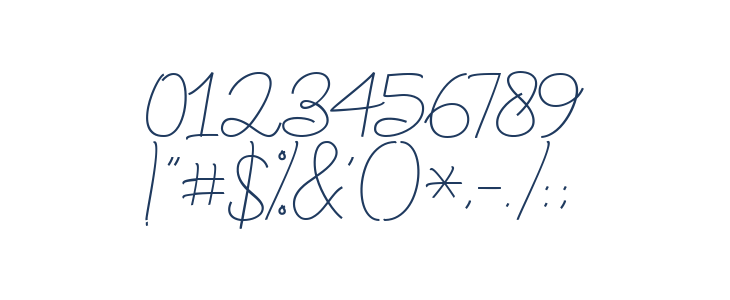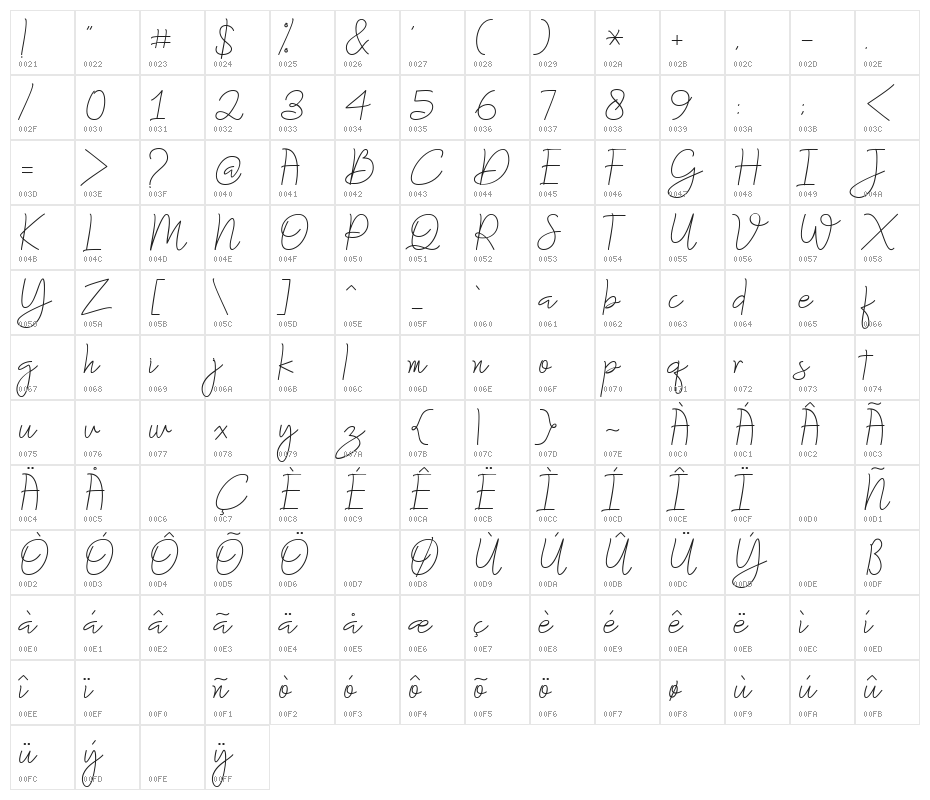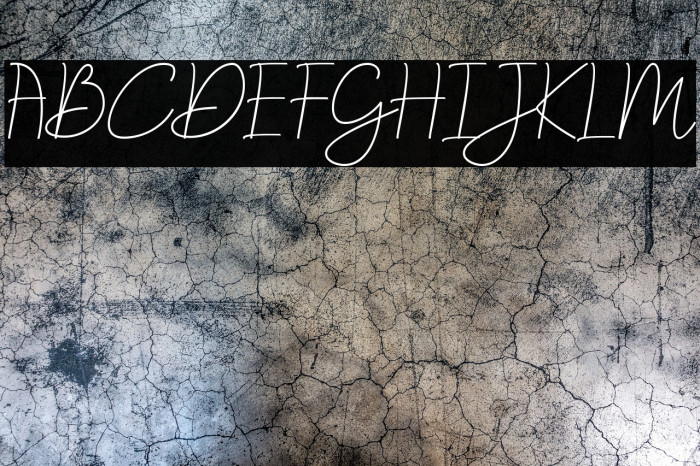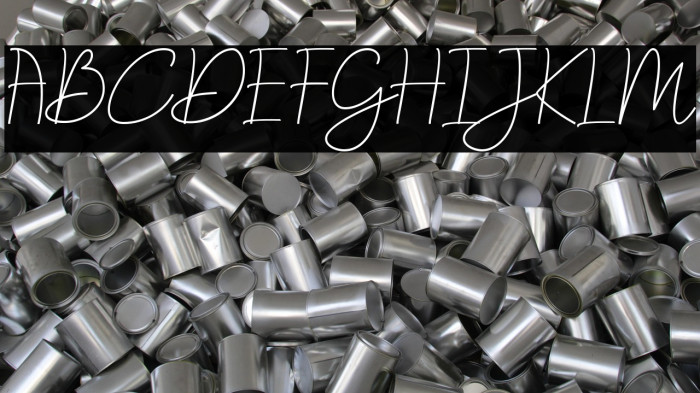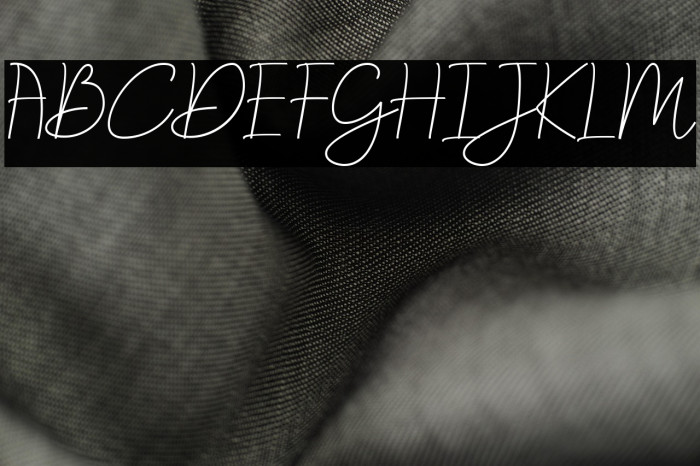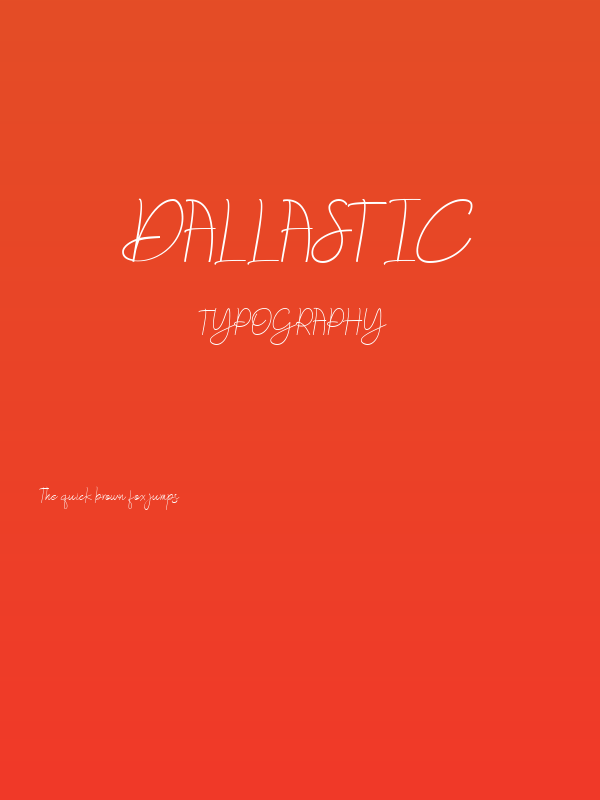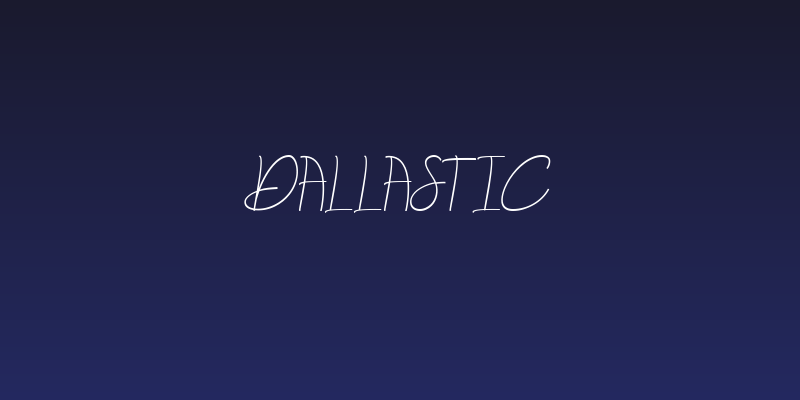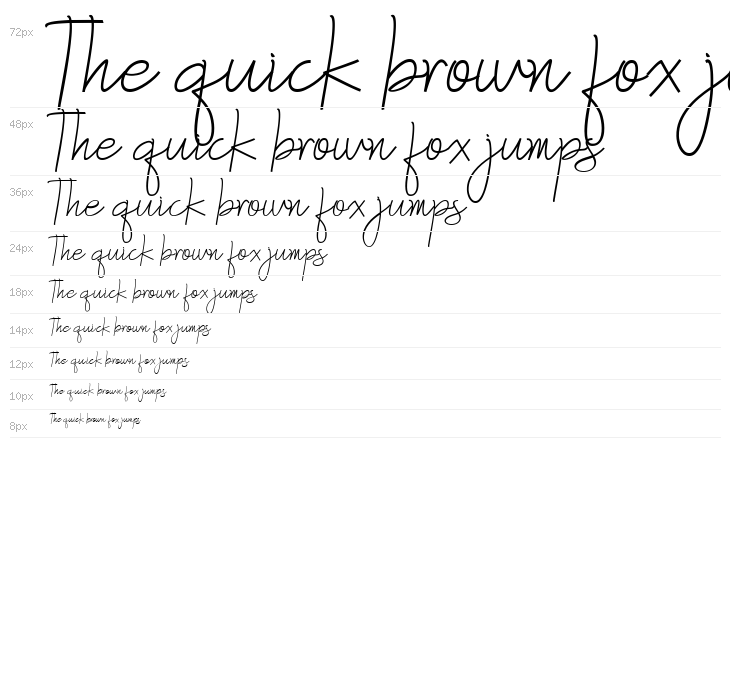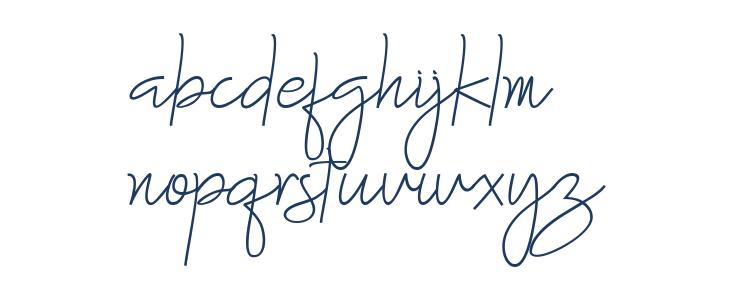
Dallastic Font
Dallastic Description
This font features a lively and flowing script style, characterized by its elegant and elongated letterforms. The uppercase letters exhibit a graceful curvature, while the lowercase letters maintain a consistent fluidity, creating a harmonious balance. The numerals are distinct and maintain the same flowing style, ensuring readability. Special characters are seamlessly integrated, adding to the font's versatility. The overall design exudes a sense of sophistication and creativity, making it suitable for a variety of artistic and formal applications.
| Overall Style | Elegant and Creative |
| Use Case | Logos, Invitations, Artistic Projects |
| Proposed Projects | Ideal for wedding invitations, greeting cards, branding projects, and artistic designs. |